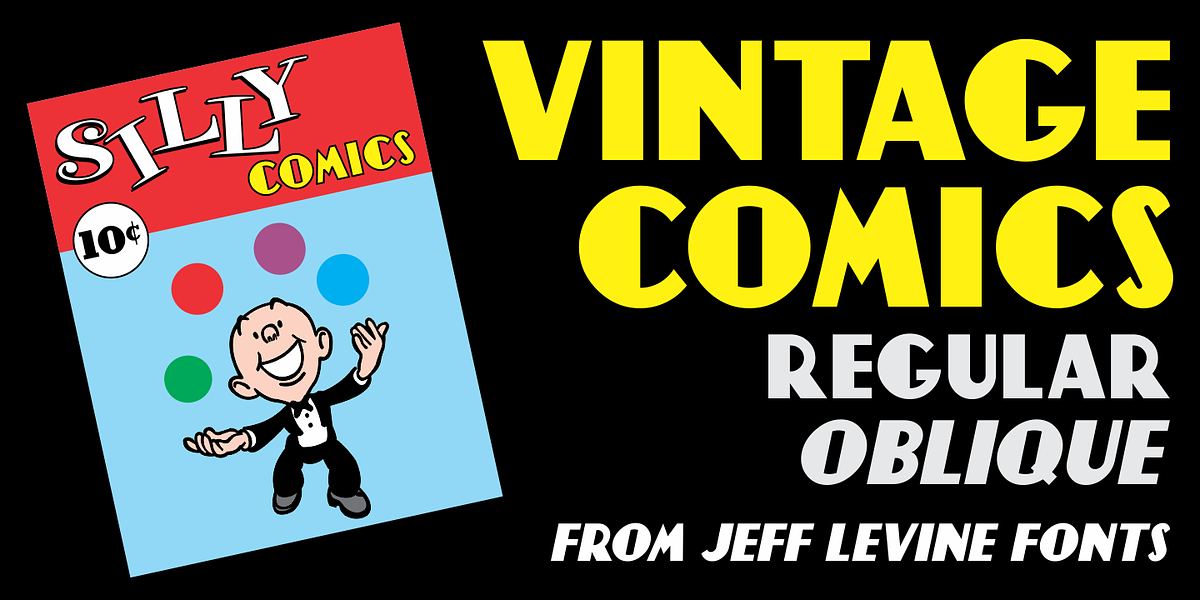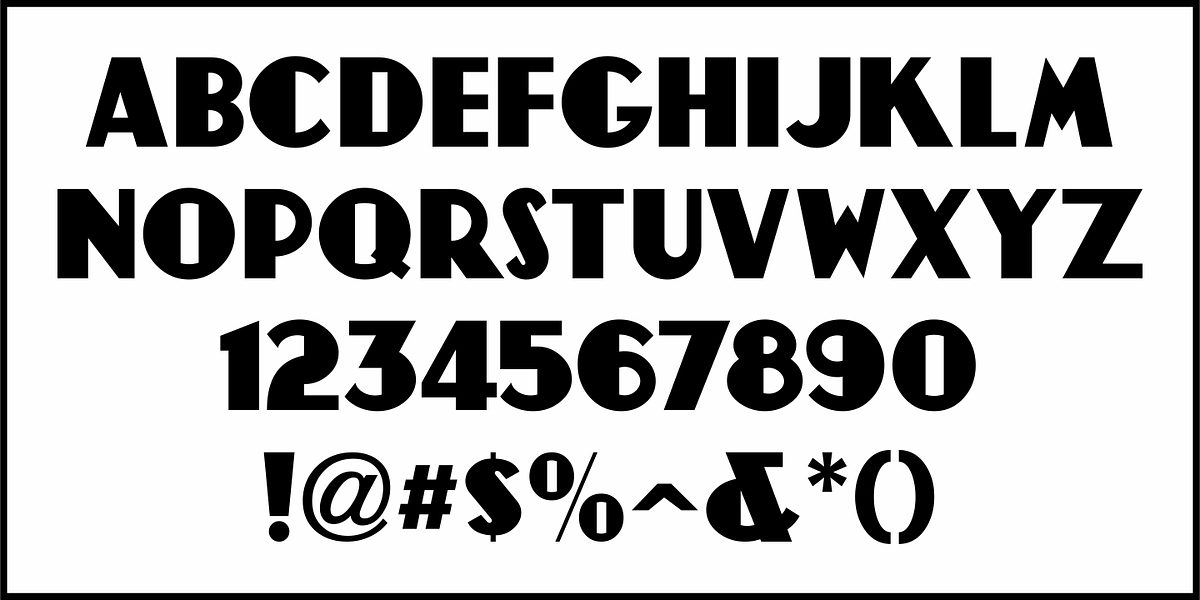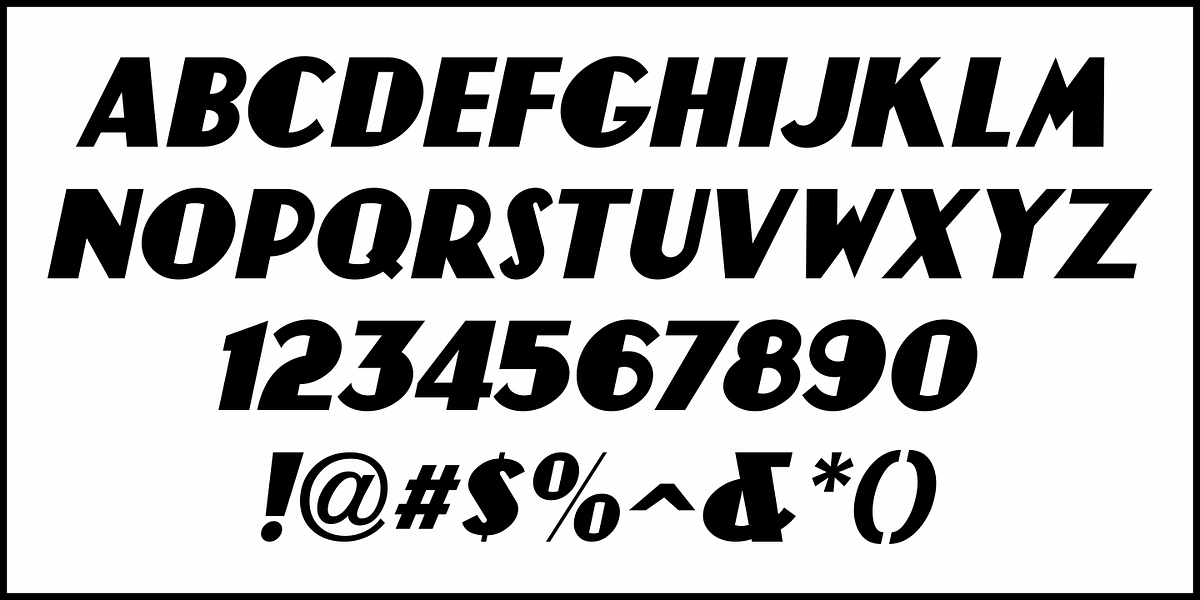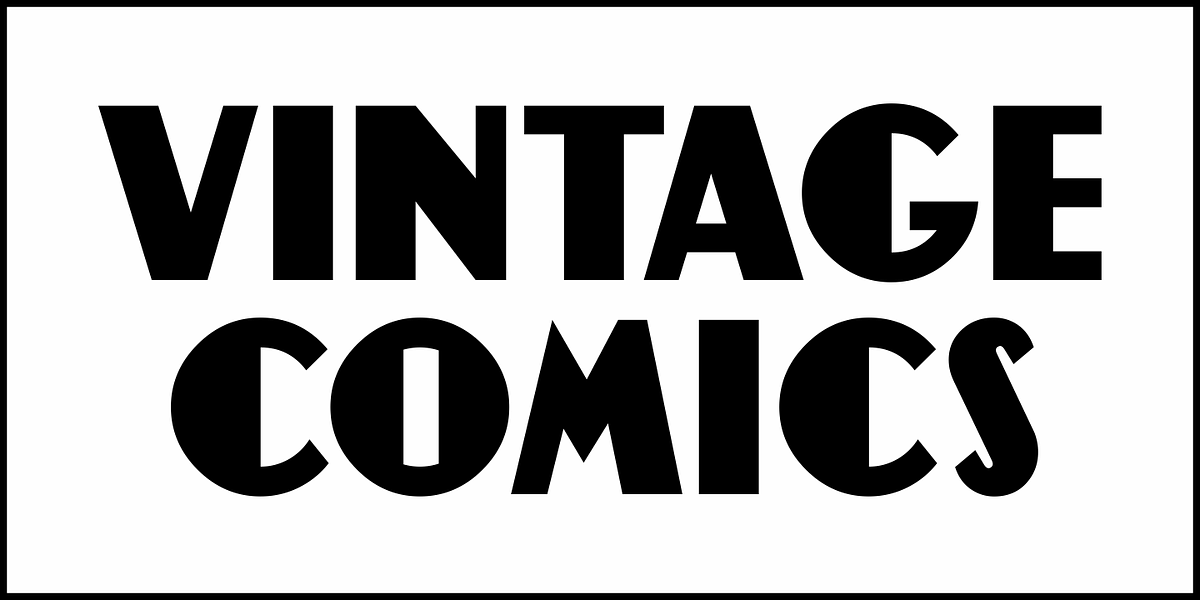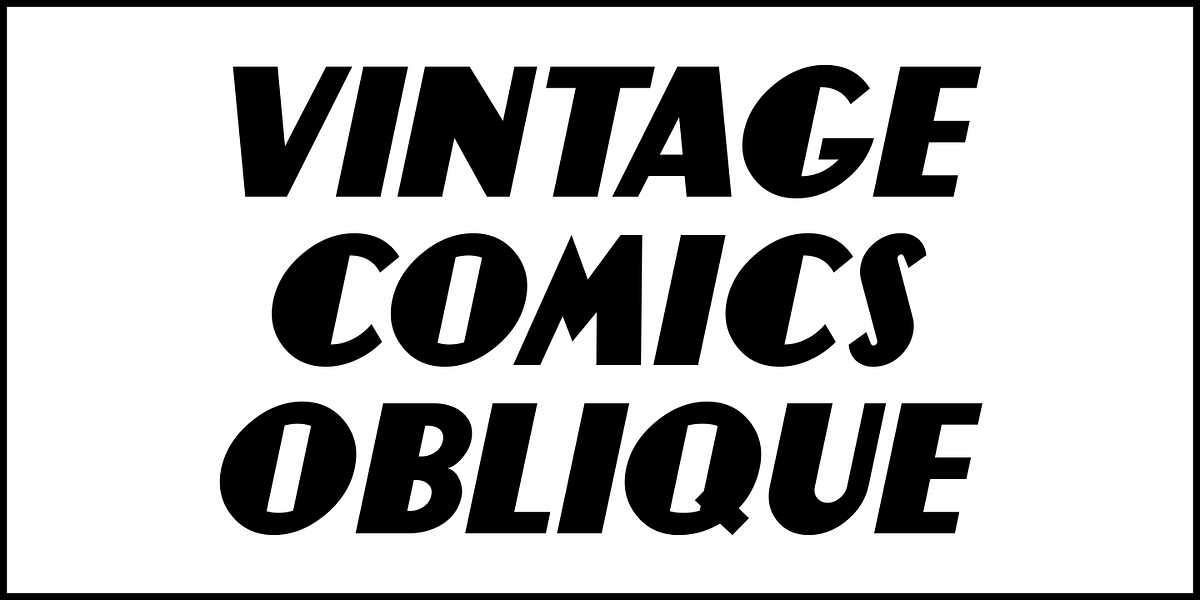
Vintage Comics JNL
Vintage Comics JNL was inspired by the way the word “comics” was hand lettered on many of the comic book covers of the 1940s, and is available in both regular and oblique versions.